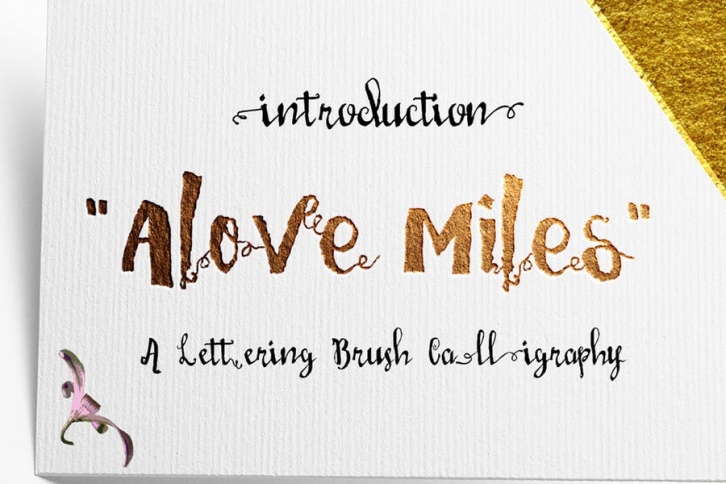
Love Mile Typeface
This font from Hand Made with Brush Paint, Love Miles is Love with distance a thousand miles stories between a man and a woman, Suitable for design, element design, wedding, event, t-shirt, logo, badges, sticker, and awesome work, etc...
• Combination alternative ligature fonts
• Regular Fonts, Script Fonts, Multilanguage Characters
• Bonus Swashes And Decorative
• Modern and Authentic Typeface
• Unique style fonts
• Easy customize